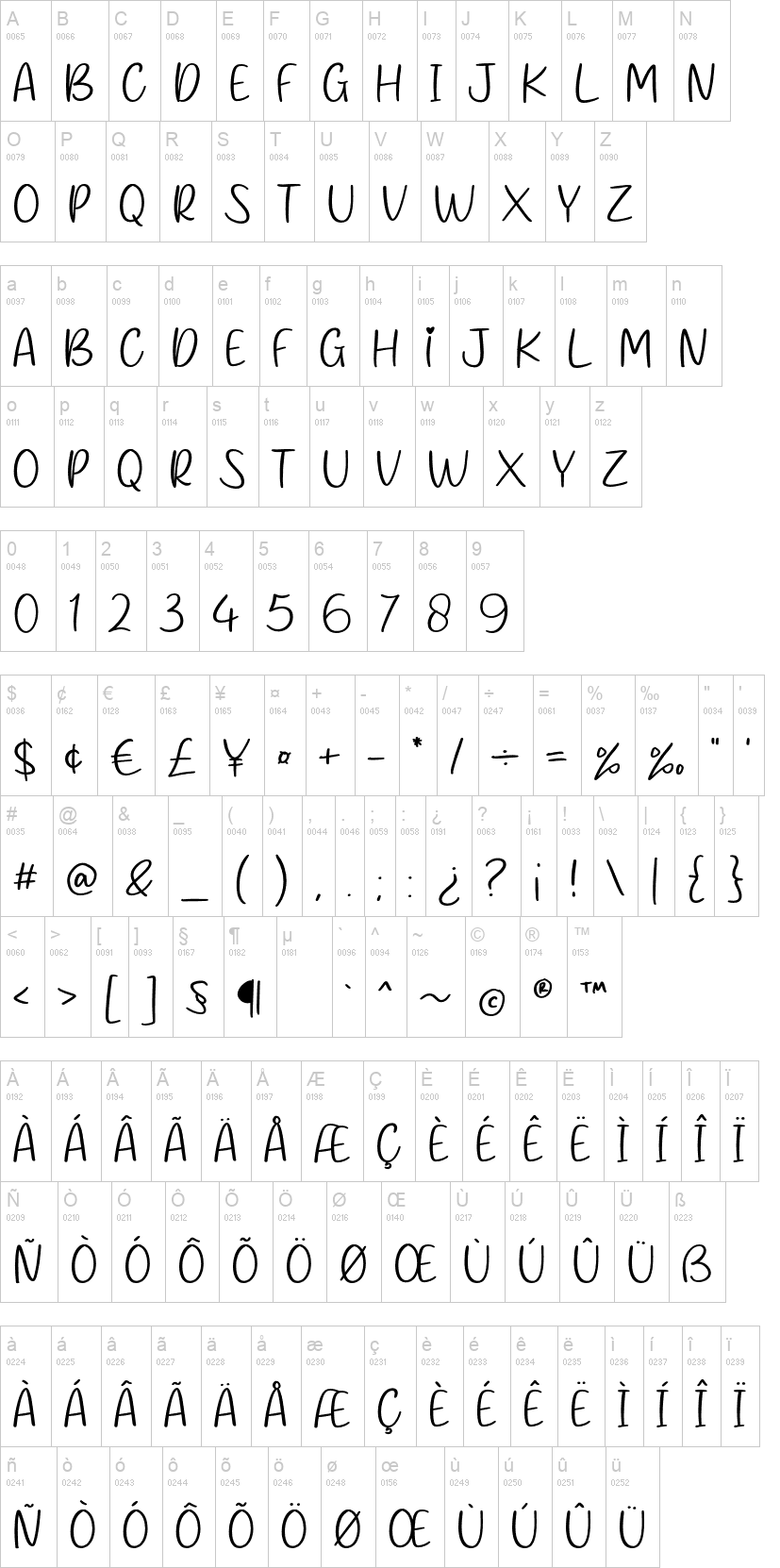
Buddies Font is perfect for children's toy packaging, friendship-themed greeting cards, playdate invitation designs, buddy system educational materials, social club communications, team-building event promotions, companion pet branding, neighborhood community signage, friendship jewelry labels, and heartwarming social marketing communications.
Buddies Font is exciting because it embodies the joyful warmth and unconditional loyalty of true friendship with its cheerfully rounded letterforms that seem to high-five each other and radiate the infectious happiness of best friends sharing adventures and creating memories together. Its delightfully companionable character design reflects both the playful energy of childhood friendships and the lasting bonds that make life's journey more meaningful, making it perfect for brands celebrating connection, companionship, and social joy.
Buddies Font family includes light, regular, medium, bold, and black weights, each with corresponding italic versions. The font family also features friendship ornaments, buddy-inspired ligatures, social symbols, and companionship decorative elements that enhance its warm aesthetic and friendship-focused versatility.
This warmly social typeface represents the perfect fusion of friendship authenticity and approachable design. Buddies Font Free Download enables designers to experience its companionable appeal before making a commercial commitment. The font's ability to convey both playful joy and genuine connection makes it ideal for children's brands, social organizations, and community-focused businesses targeting audiences who value friendship and social bonds.
Whether you're developing children's product identities, creating social event materials, or designing community-focused communications, Buddies Font brings an unmistakable sense of friendship warmth and social connection to every project. Its companionable character and friendship heritage create emotional connections that resonate with audiences seeking genuine social experiences and meaningful relationships.
The font's versatility excels in social and educational environments where friendship and connection are celebrated. Its buddy-friendly character makes it particularly effective for children's brands, community organizations, social clubs, and educational institutions seeking to establish warm relationships with families and communities who value friendship and social togetherness.
For designers working on projects requiring genuine friendship appeal and social warmth, Buddies Font provides an exceptional solution. Its companionable presence and comprehensive friendship-themed elements offer the tools needed for creating truly connecting communications, while its joyful spirit ensures your designs capture the authentic warmth and loyal companionship that defines the most cherished friendships and meaningful social connections.